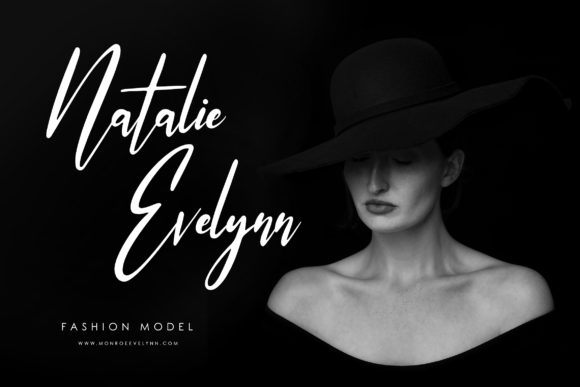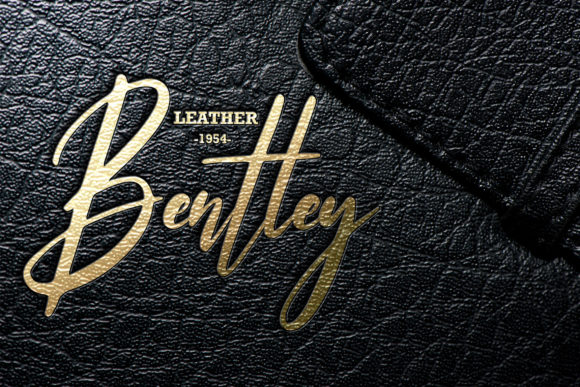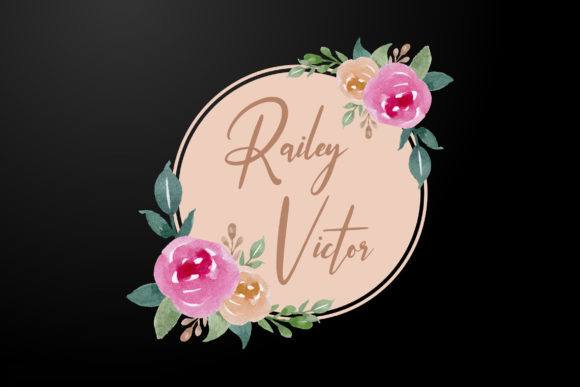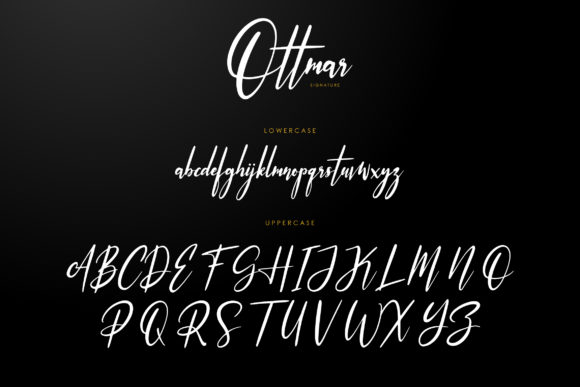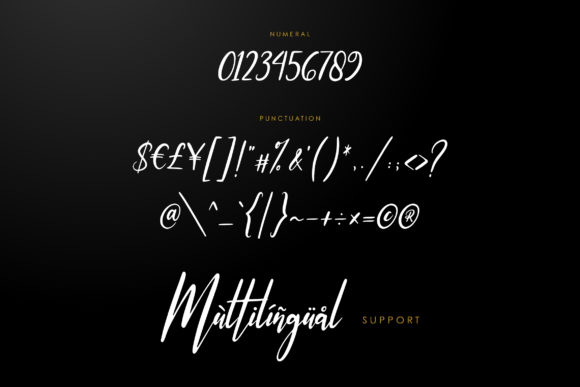
Introduction to Ottmar Font
Remember that moment when you’re working on a creative project and you’re just about to hit the perfect balance between style and simplicity? The one where you add that extra touch that makes your design truly stand out? For designers, finding the right font can be the key to unlocking that magic.
That’s where the Ottmar Font comes in – a light and casual handwritten font that effortlessly adds an authentic twist to any design project. Its unique feel and high-quality design make it a valuable resource for designers looking to elevate their work.
Ottmar Font
- High-quality font design suitable for various creative projects, including graphic design, digital art, and publishing.
- Perfect for use in digital and print media, including websites, social media, posters, and business cards.
Honest Review: Ottmar Font
I recently stumbled upon the Ottmar Font, and I must say it’s a great addition to any designer’s toolkit. As a design resource, it’s a must-have for any creative project that requires a unique and high-quality font.
- ✨ High-quality design: The font is clean, modern, and visually appealing.
- ⚠️ Limited font styles: The Ottmar Font only comes in a few font styles, which may limit its versatility in certain projects.
- ⚠️ Not suitable for complex text: Due to its modern design, the font may not be the best choice for projects that require complex or lengthy text.
Overall, the Ottmar Font is a great choice for designers who need a high-quality, modern font for their creative projects. While it has some limitations, its unique design and free download make it a valuable resource in any designer’s toolkit.
Ottmar Font
Ottmar Font is a free design resource ideal for creative projects. It’s a high-quality font with a transparent background, making it versatile for various applications.
Tips for Getting the Most Out of Ottmar Font
Use Ottmar Font for titles, headings, and body text to create a consistent design look.
Experiment with different font sizes and styles to add visual interest to your project.
Ottmar Font is ideal for:
Business presentations
Marketing materials
Design projects
Alternatives to Ottmar Font
Montserrat Font is a geometric sans-serif typeface designed for urban environments and modern creative projects. It features a bold and elegant design, making it perfect for headings and titles. Montserrat Font is available for free download and can be used for digital and print media, offering a high-quality and professional look. Compared to Ottmar Font, Montserrat Font is more bold and suitable for projects that require a strong visual impact.